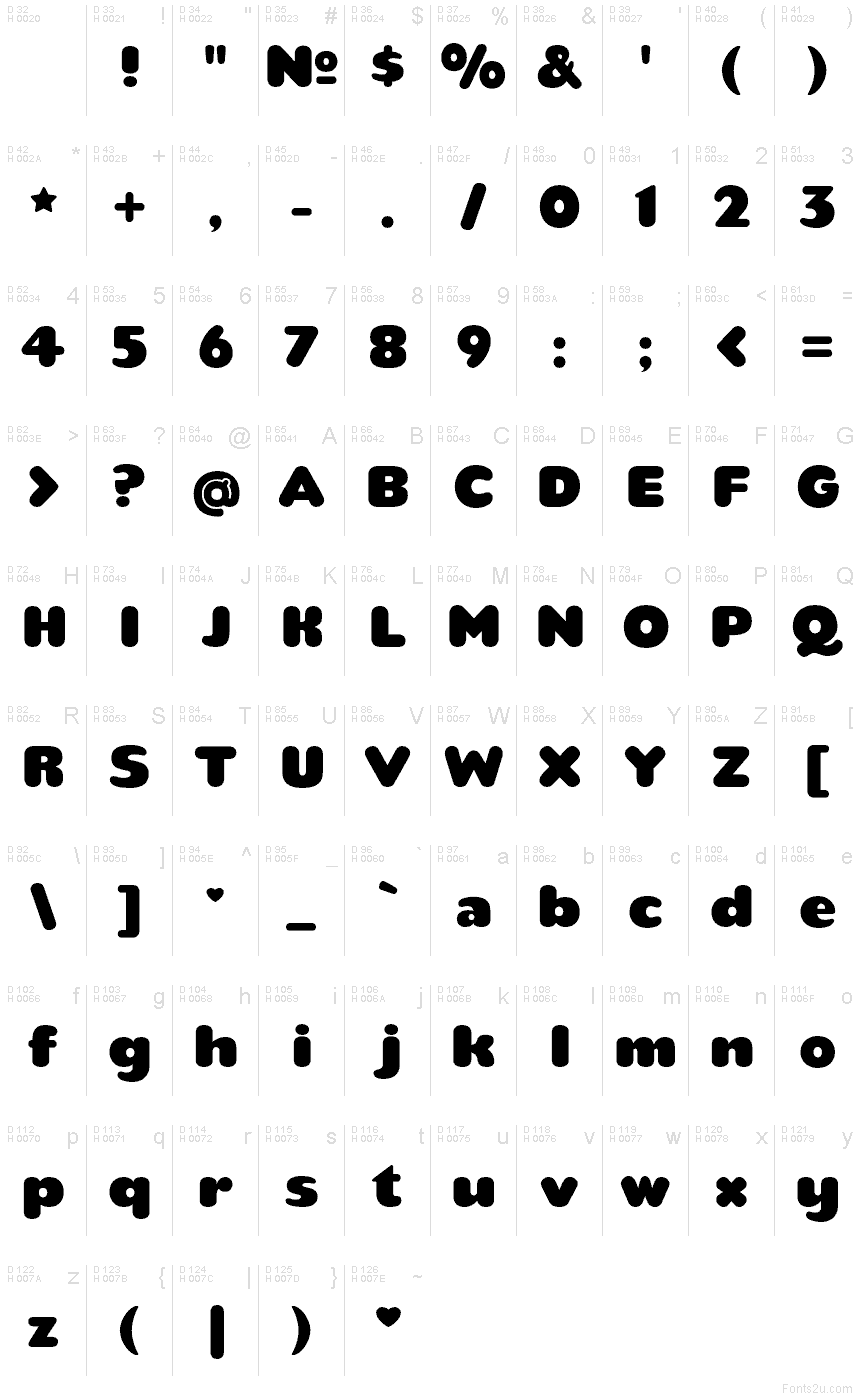
Hooplakidz rg
Hooplakidz font by Élise Benoît Fonts is a free playful rounded display typeface. Its chunky, marshmallow-soft forms and even, buoyant rhythm read like foam stickers-bold, friendly, and instantly kid-facing. The counters stay open, the weight is cuddly rather than heavy, and the whole wordshape feels like it could bounce off the page, making headlines feel warm and approachable.
Using Hooplakidz, you’ll get cheerful impact on children’s videos, toy packaging, birthday invitations, classroom posters, app icons, and YouTube thumbnails. This free font thrives in bright color palettes and large sizes; give it a touch of extra tracking when space is tight. Pair with a clean geometric sans for body copy to keep the message clear while the title does the smiling.